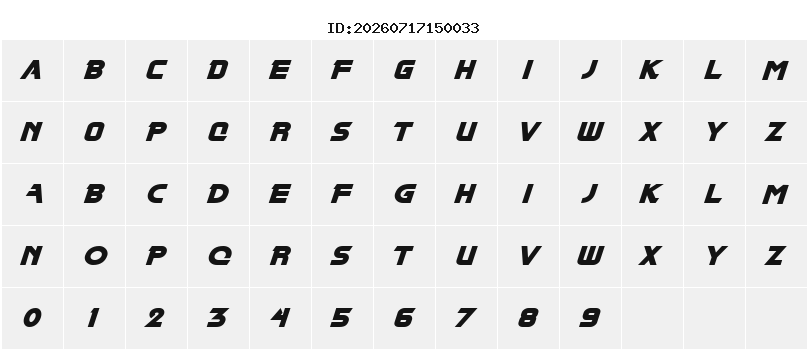
BladeOblique Preview
• Font Name: BladeOblique
• Full Font Name: BladeOblique
• PostScript Name: BladeOblique
About BladeOblique.ttf
BladeOblique.ttf is a modern, elegant sans-serif font designed for ultimate readability and visual harmony. Perfect for branding, headlines, web design, and print materials.